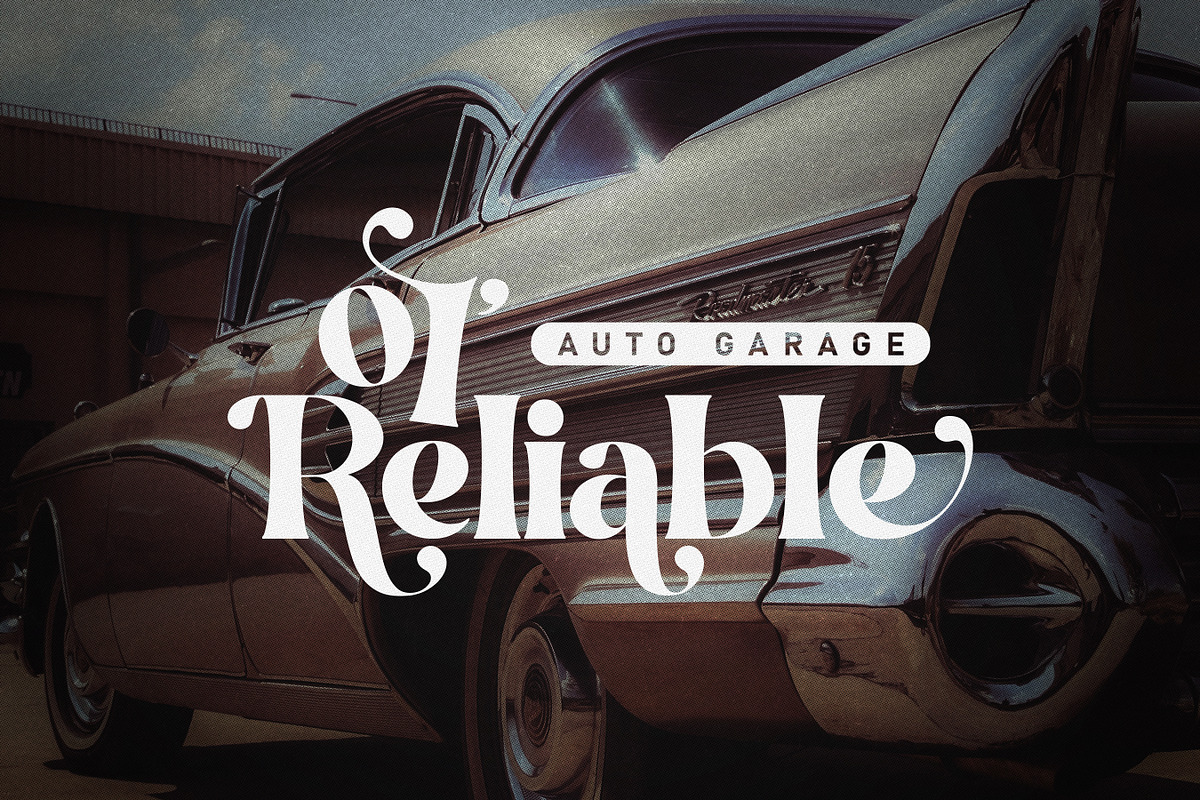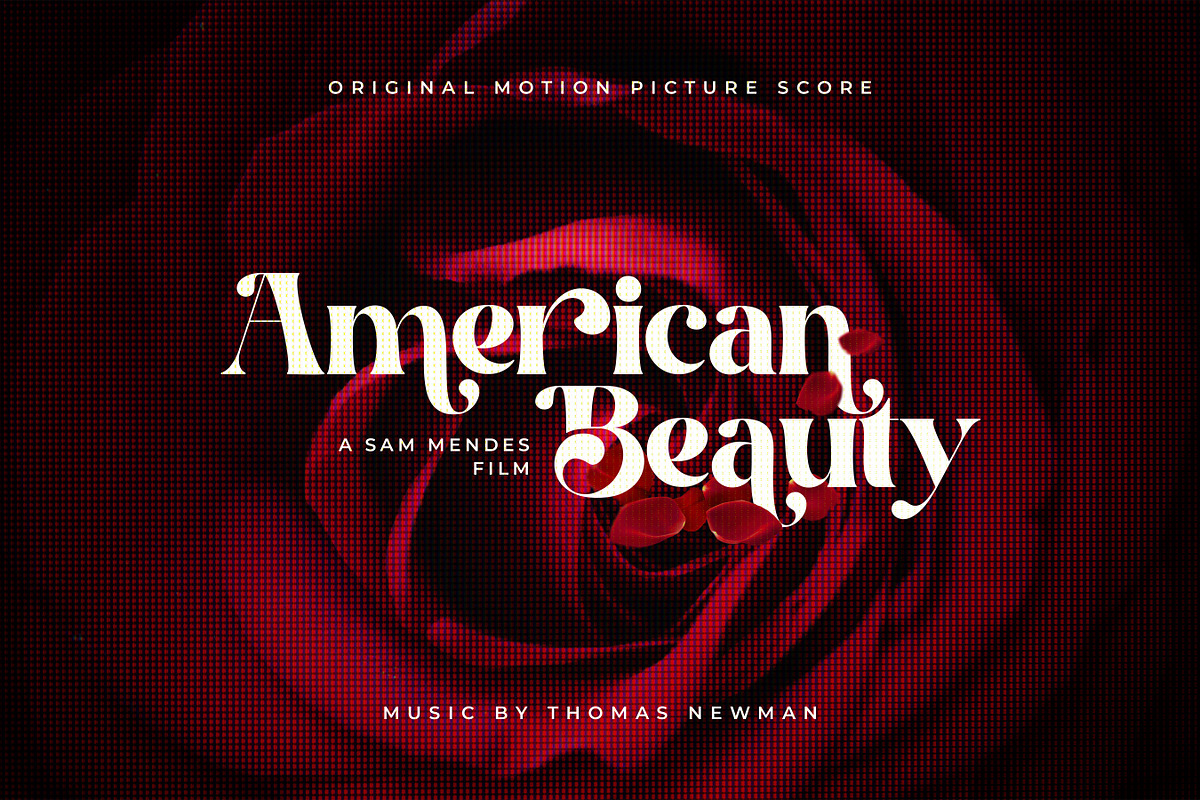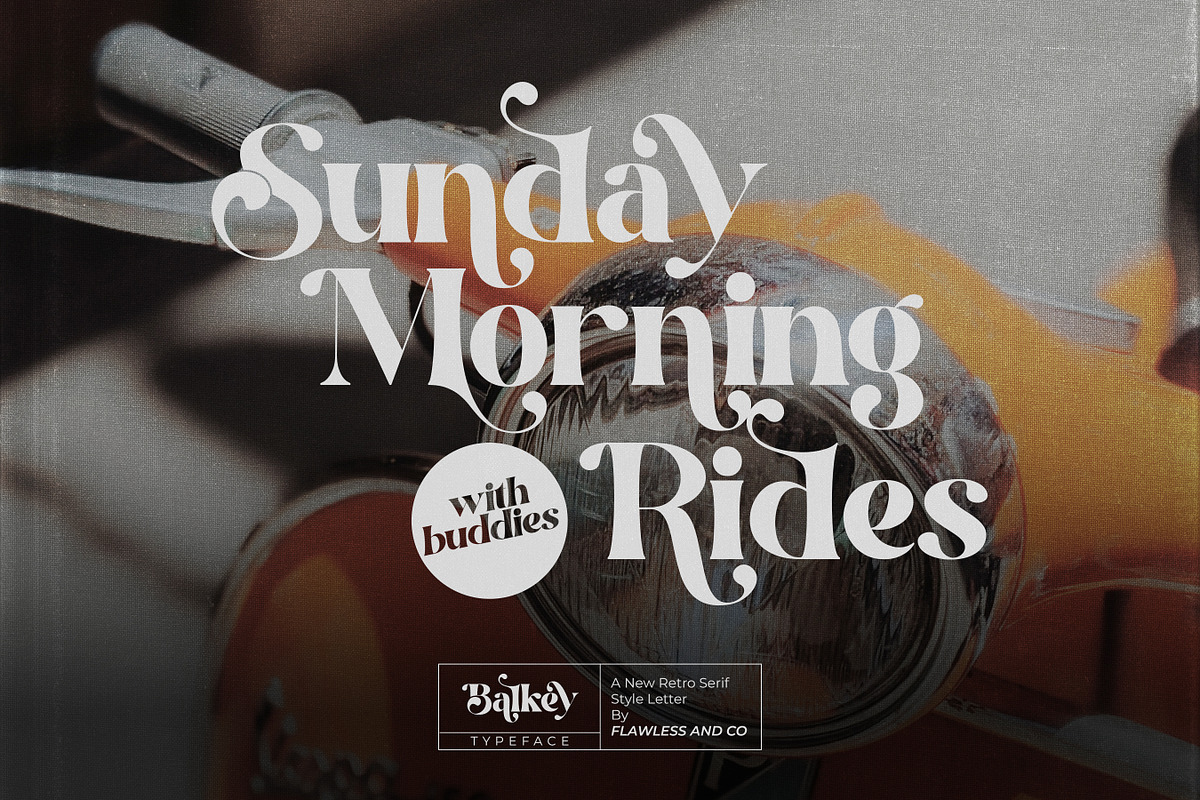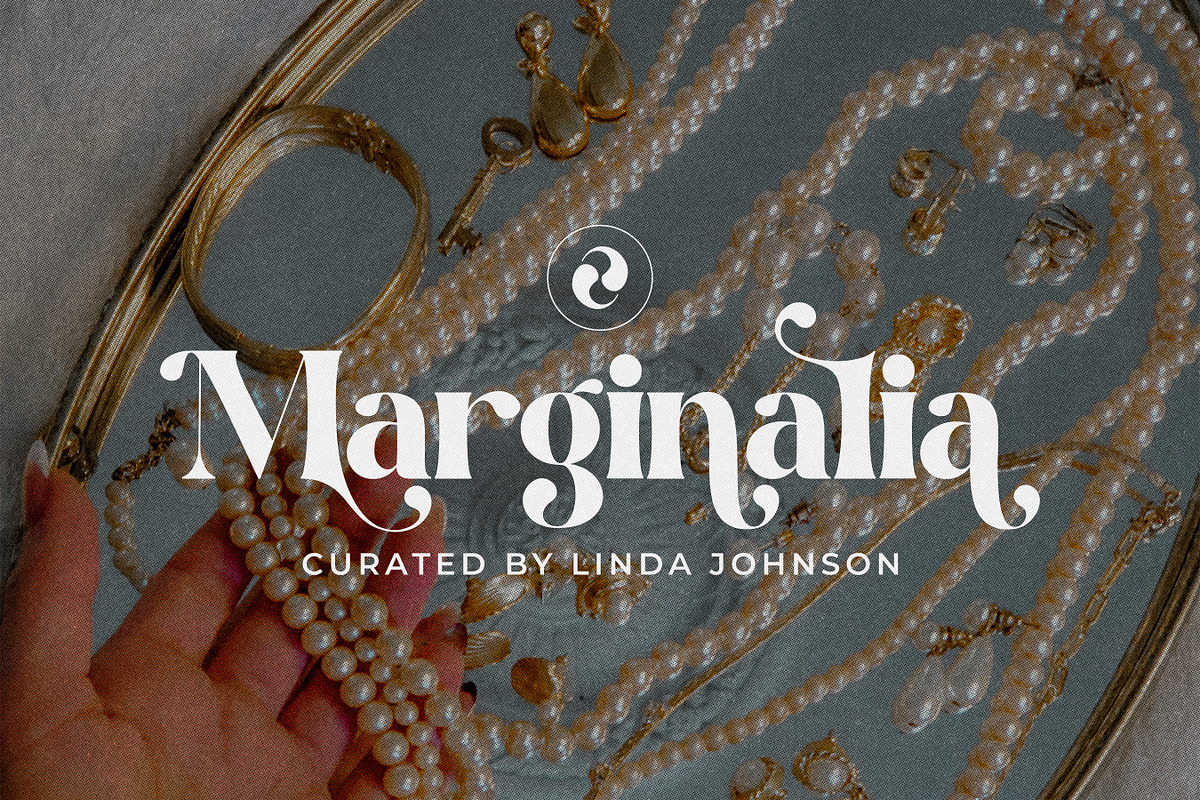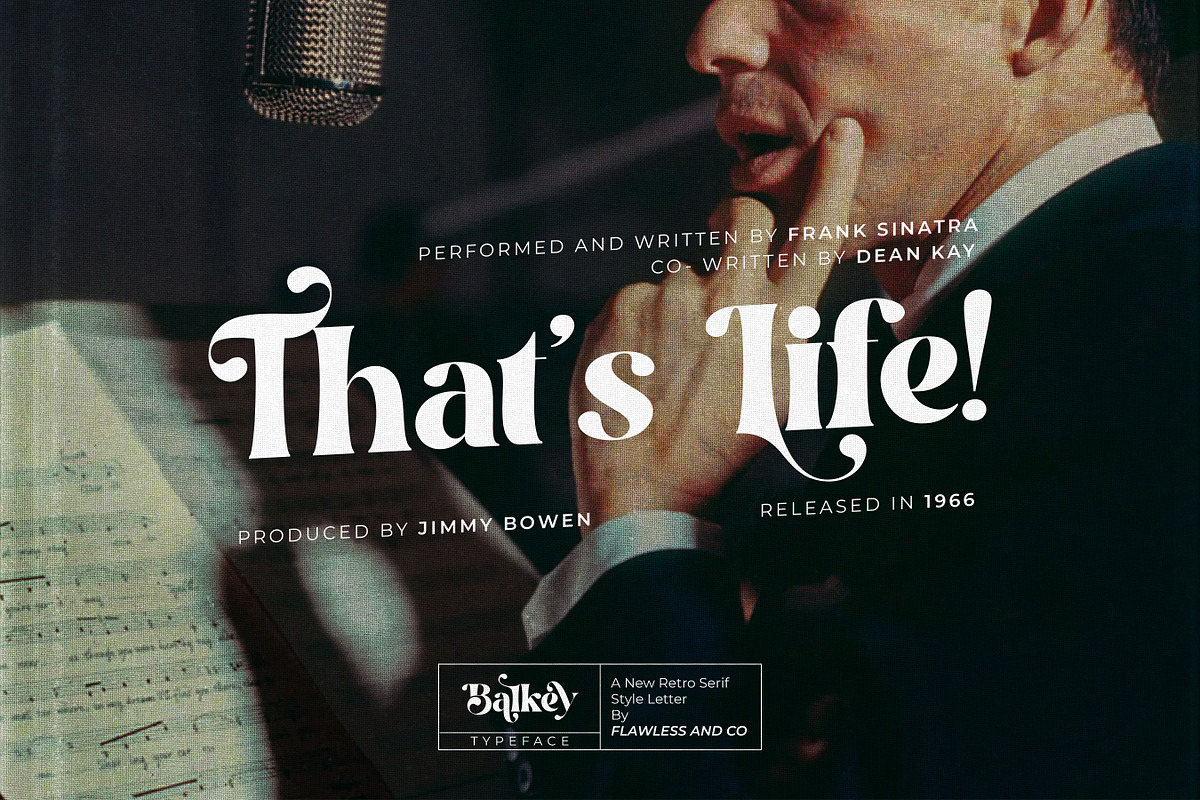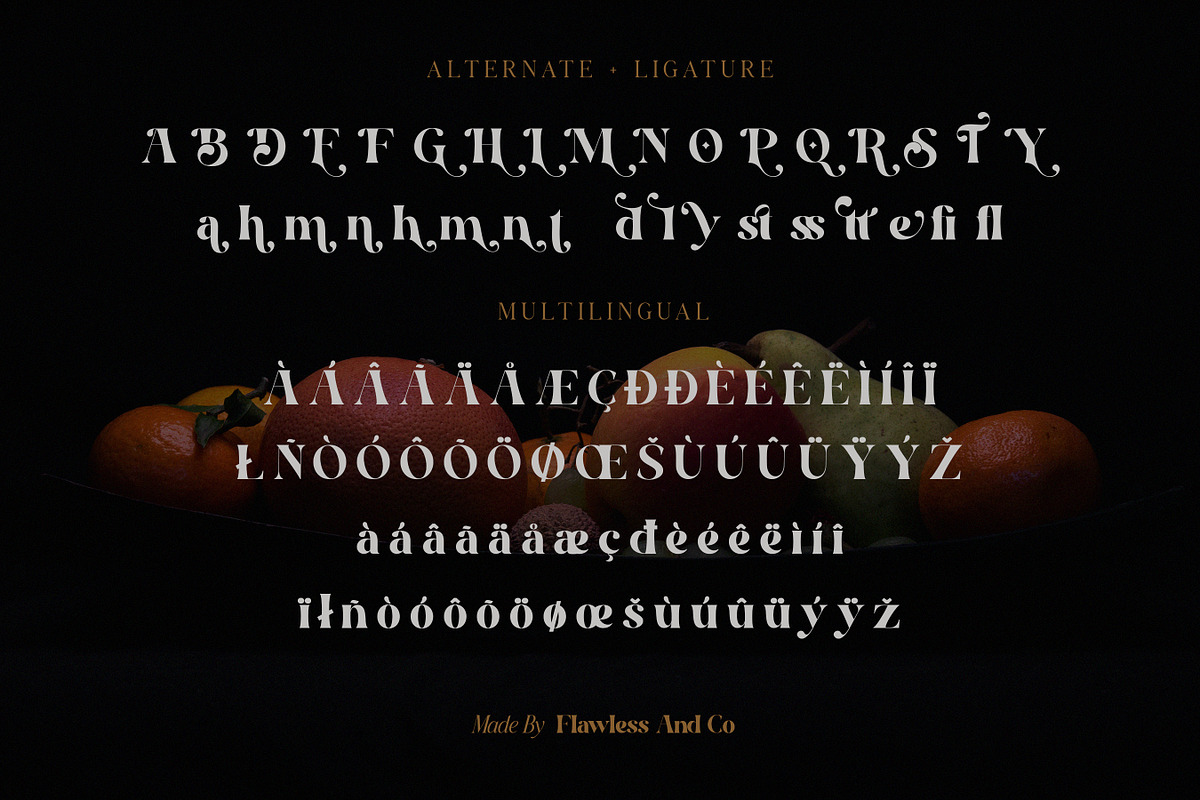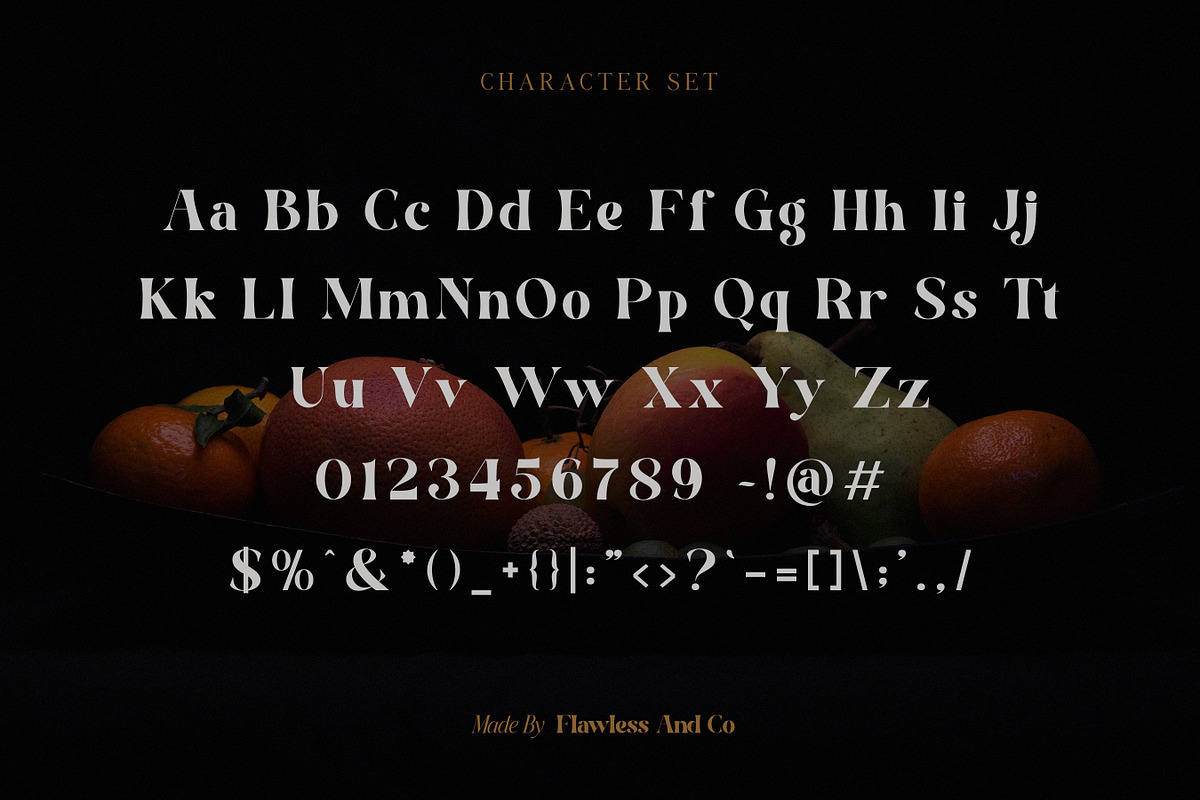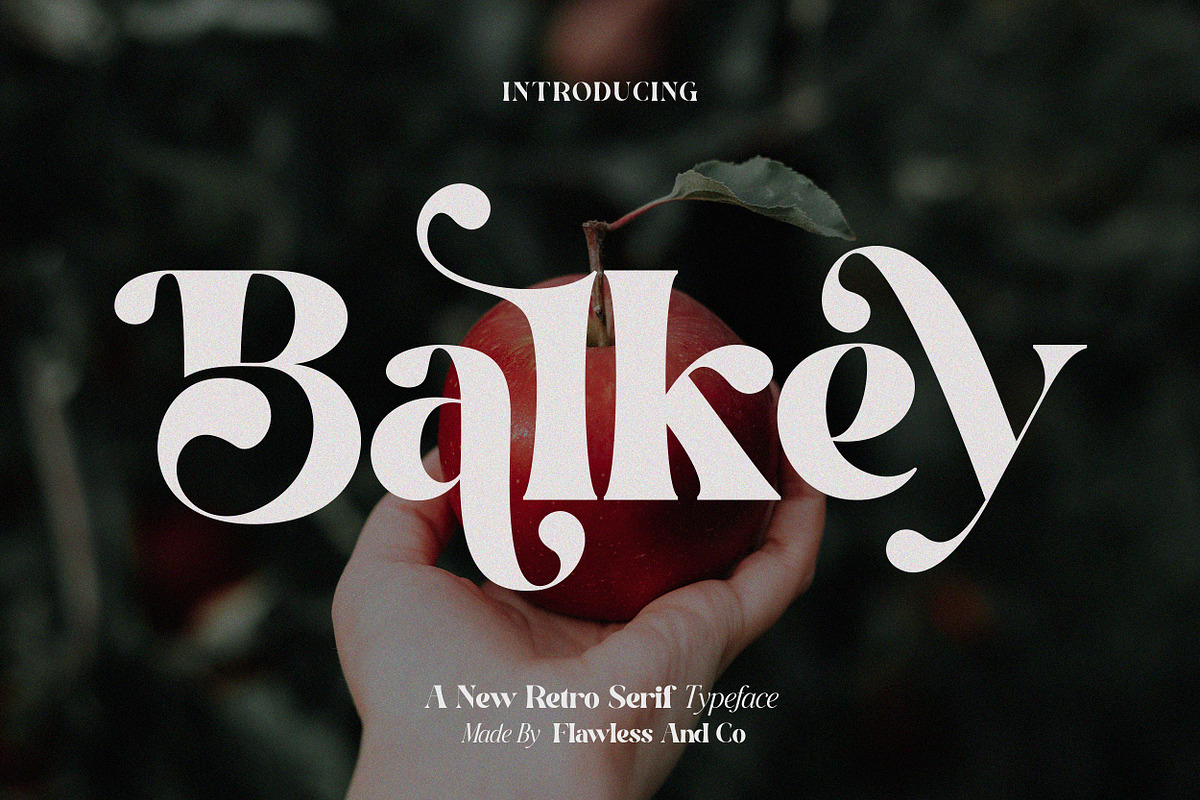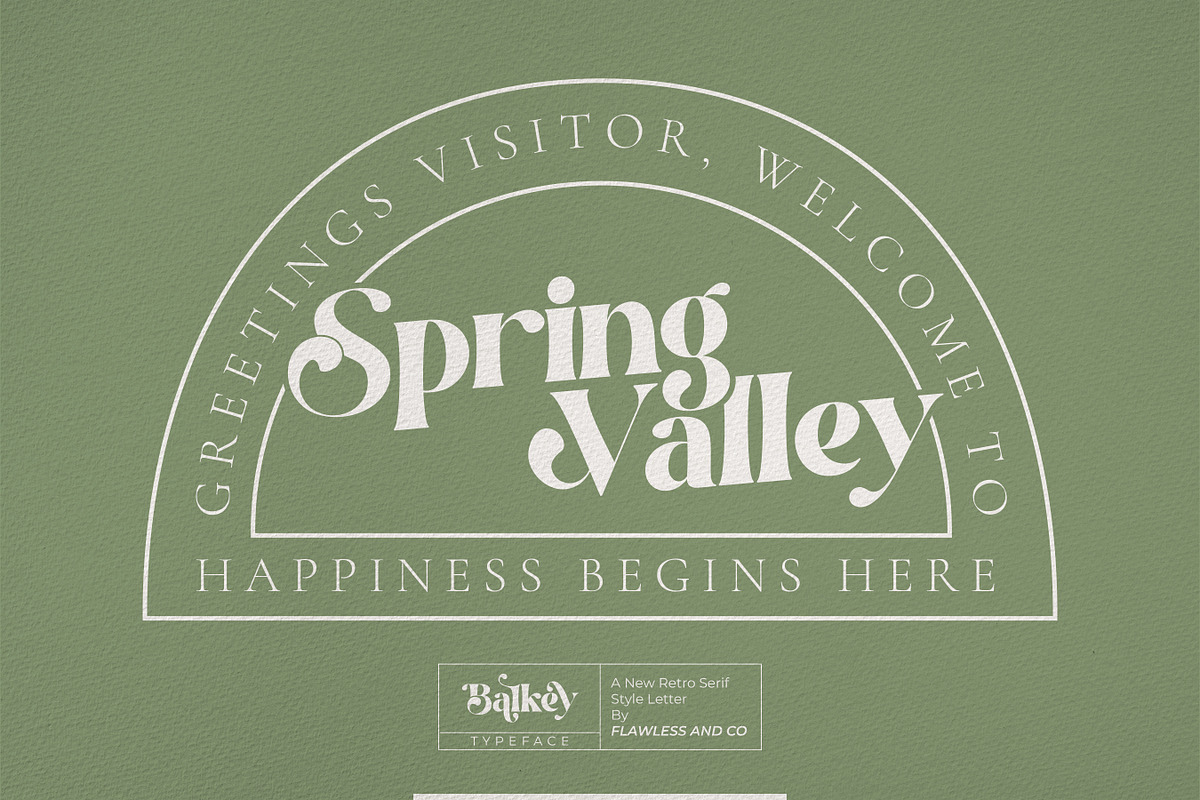
Balkey
Balkey - Retro Serif Font, Procreate Font, Sans Serif, Modern Boho font, Vintage Font, Classic Font
Introducing our New Retro Serif font, this font suitable for branding, wedding invitation, logo, handcrafted,
Multilingual Uppercase alphabet A-Z Lowercase alphabet a-z Alternate Character Numbers 0-9 Some punctuation